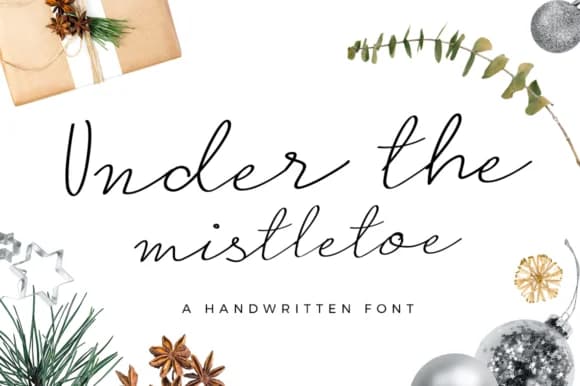
Under the Mistletoe by duka is a flowing script font that captures the warmth of natural handwriting. With its organic letterforms and subtle variations, this typeface brings a personal, handcrafted quality to any project that requires authentic character and genuine feeling. Whether you're designing seasonal campaigns or creating everyday typography, Under the Mistletoe strikes the balance between elegance and approachability that resonates with modern audiences seeking something more personal than typical geometric fonts. This script works beautifully for holiday greeting card designs where authenticity matters far more than mechanical perfection. You'll find it equally effective for handwritten-style wedding invitation suites that convey intimacy and care between sender and recipient. Creators working on product label design for artisanal goods, think specialty teas, small-batch cosmetics, or local honey, will appreciate how this font communicates genuine craftsmanship. Social media header graphics for seasonal campaigns gain an inviting, personal touch that helps content stand out in crowded feeds and genuinely capture user attention. Beyond seasonal projects, the versatility of Under the Mistletoe extends to signature design, brand messaging, and anywhere you need typography that feels human rather than mechanical. The font's natural flow makes it suitable for both digital applications and print materials. Get Under the Mistletoe on Creative Fabrica and bring this charming script into your design toolkit.
Under the Mistletoe Font is a script font that shines as a display or heading face. Pair it with a clean sans-serif or serif font for body text β the contrast creates a clear hierarchy while the two styles stay balanced and easy to read.